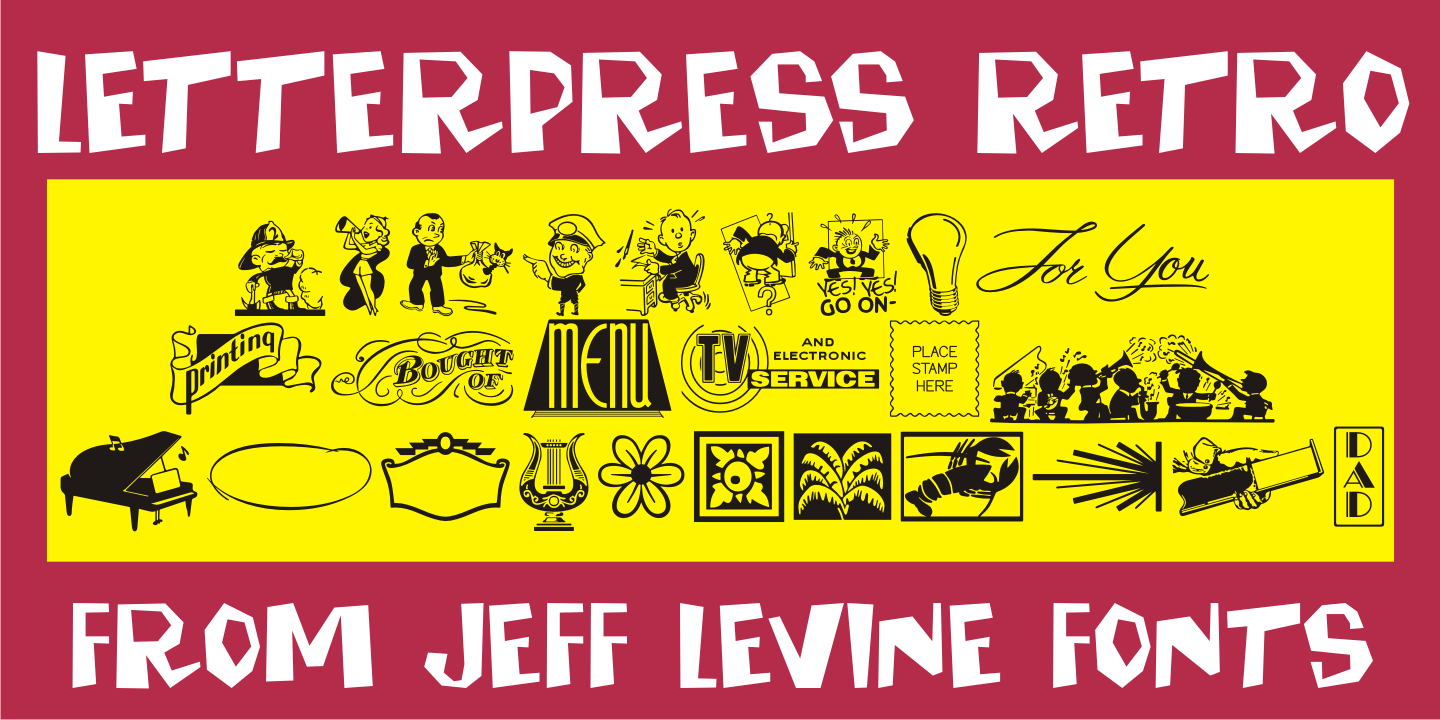
Letterpress Retro
More treasures from the heyday of letterpress printing are found in Letterpress Retro JNL, with plenty of great cartoons, catch words, embellishments and more.